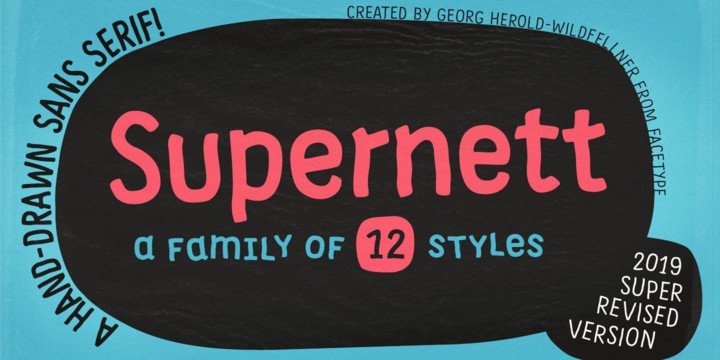
Supernett Sans Font
Supernett Sans Font is available in three weights, two widths, Uprights and Italics. The handmade family is tailored for large font sizes but also impresses with seamless legibility in small type sizes. Due to it’s display origin and slightly condensed appearance, make sure to increase the spacing a little when used in text setting. The extensive character set supports 209 Central and Eastern European as well as Western European languages (for details, please see below).